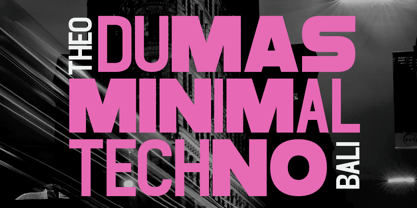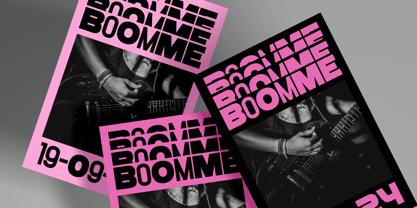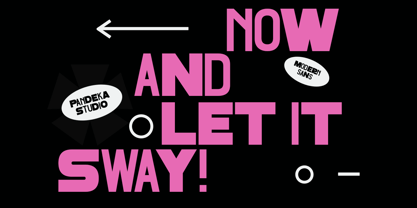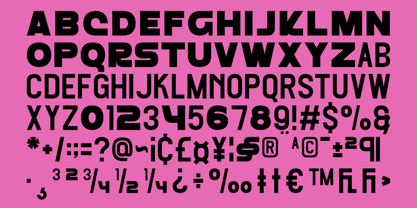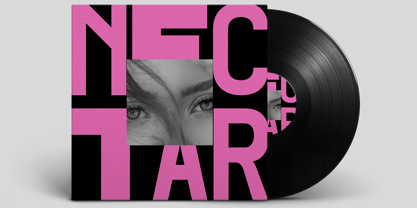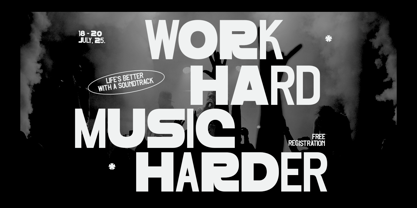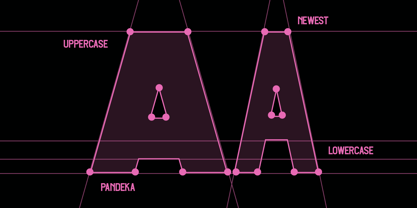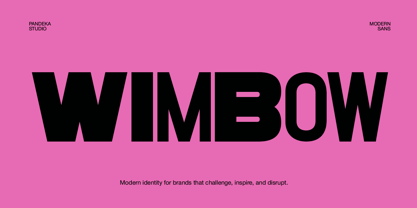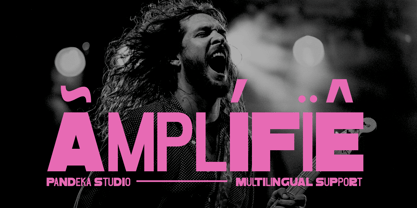
Wimbow is a bold and modern display font that embodies the energy and rhythm of urban life. Designed with strong geometric shapes and a confident, contemporary aesthetic, Wimbow brings a stylish and powerful presence to your creative projects. Perfect for music posters, streetwear branding, club flyers, urban editorials, and event promotions, this font captures the pulse of the modern city.
With its clean structure and impactful character design, Wimbow is ideal for brands and creatives who want to make a statement. Every letter delivers a sense of strength, confidence, and motion, perfect for modern typography that demands attention.
Wimbow comes in 1 Regular style, including uppercase, lowercase, numbers, punctuation, and multilingual support for flexibility in both print and digital work.